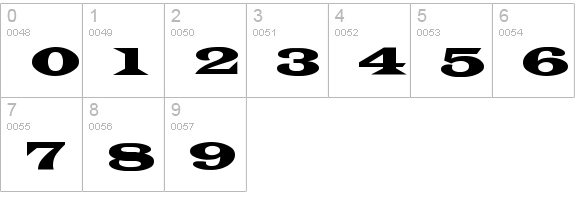
Latin-Wide is a distinctive, extended-width variant in the Latin typeface family \xE2\x80\x94 well suited to design and typography projects.
Latin-Wide font is a stunning display typeface that brings a touch of elegance and sophistication to any design project. With its elongated and wide letterforms, this font exudes a sense of grandeur and presence. The Latin-Wide font is perfect for headlines, titles, and logos, as it commands attention and makes a bold statement. Not only does Latin-Wide font possess a unique and eye-catching aesthetic, but it is also a versatile typeface that can be used across various design applications. Whether you are creating a magazine layout, designing a poster, or developing a website, this font will add a touch of flair and professionalism to your work. One of the best things about Latin-Wide font is that it is available for free. Yes, you read that right! This incredible font can be freely downloaded at FontsMarket.com. This means that you have the opportunity to enhance your designs without breaking the bank. With Latin-Wide font, you can access high-quality design resources without any cost, allowing you to unleash your creativity without limitations. So, why wait? Download Latin-Wide font today and elevate your designs to new heights. Whether you are a professional designer or a passionate hobbyist, this font will undoubtedly become an invaluable asset in your creative arsenal. Don't miss out on this opportunity to enhance your projects with a font that combines beauty, versatility, and affordability. Get Latin-Wide font now and let your designs shine!